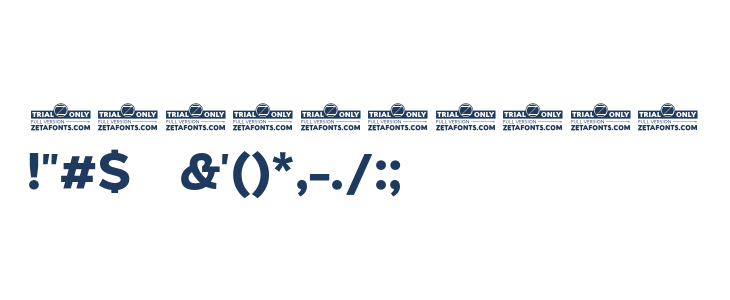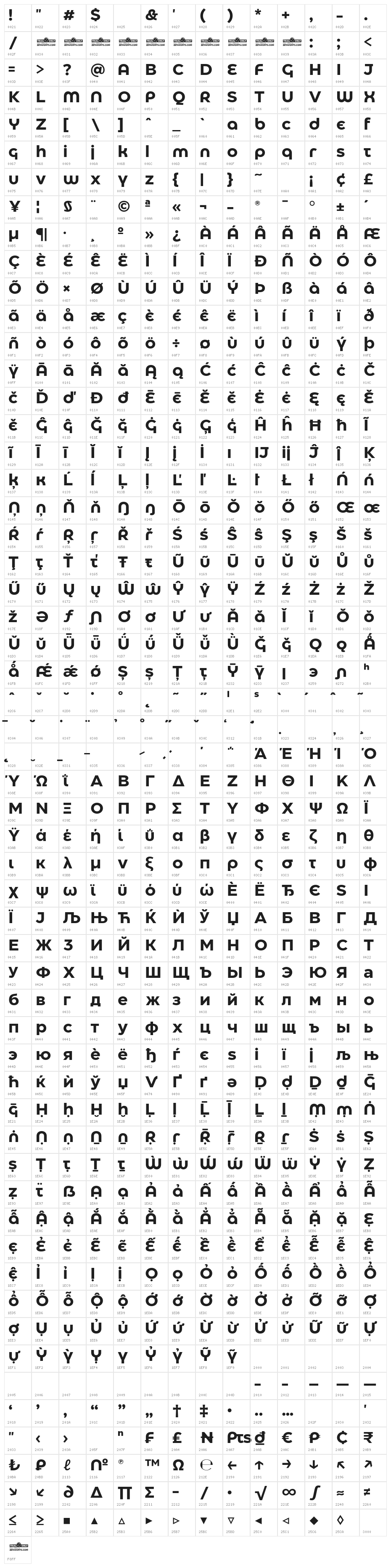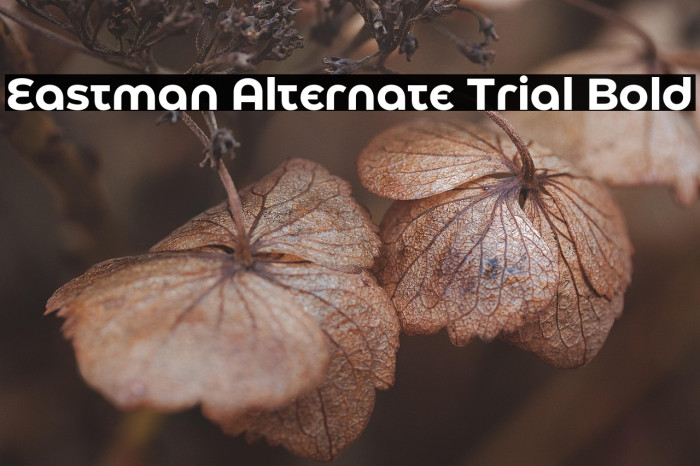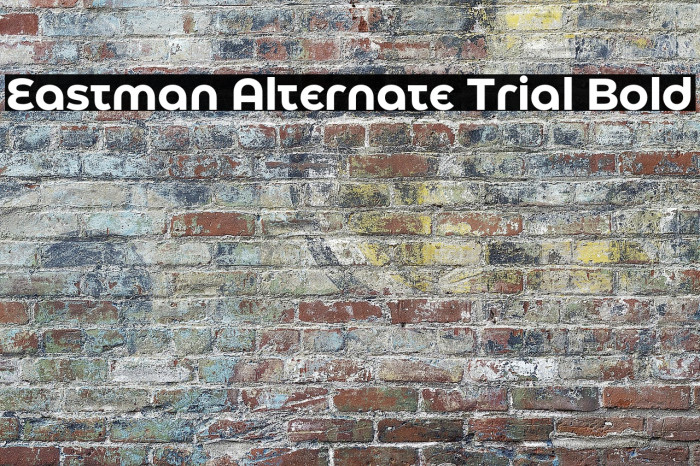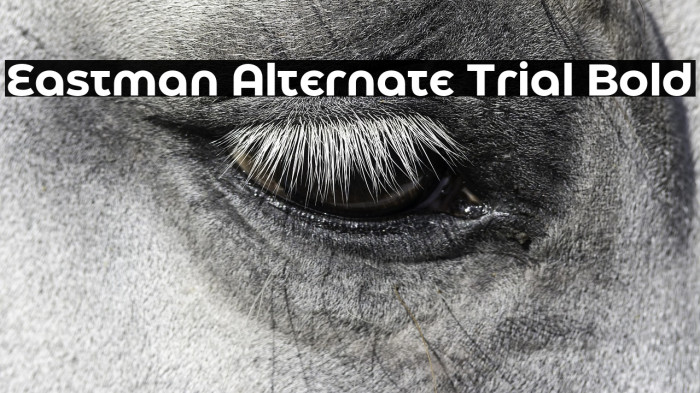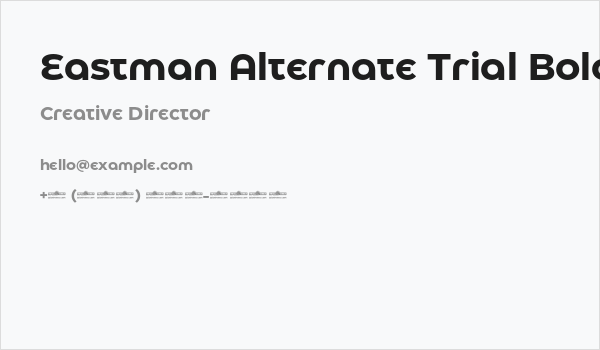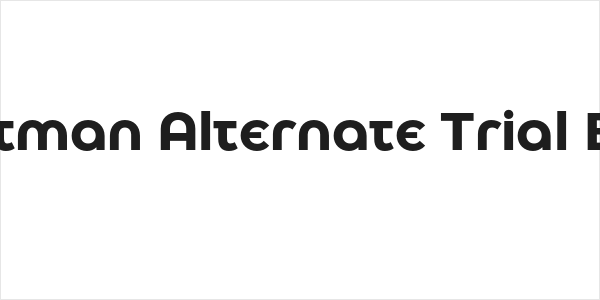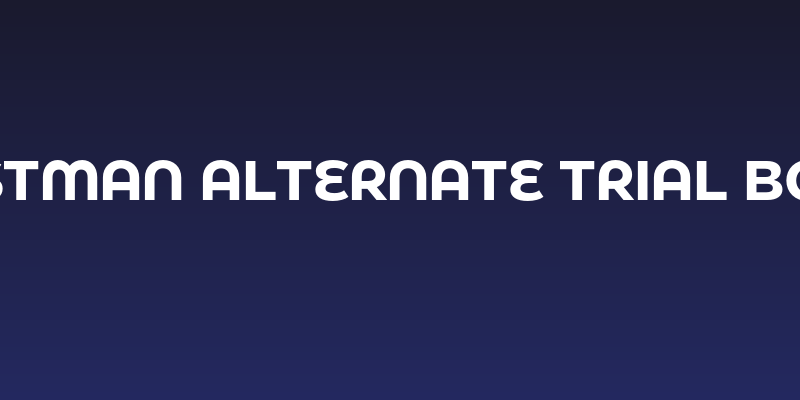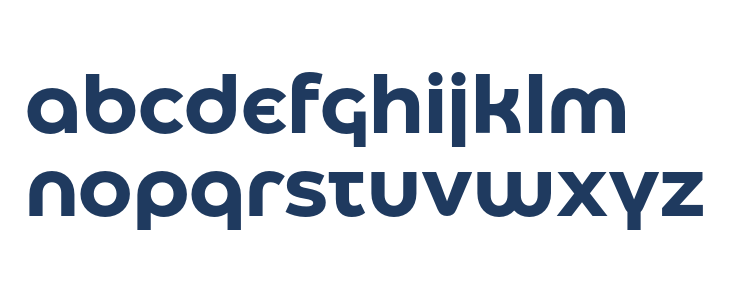
Eastman Alternate Trial Bold Font
Eastman Alternate Trial Bold Description
This font features a bold and modern design with clean, geometric lines. The uppercase and lowercase letters maintain a consistent width, creating a uniform appearance. The rounded edges and smooth curves give it a friendly and approachable feel, while the bold weight ensures strong visibility and impact. The numerals and special characters are designed to match the overall style, providing a cohesive look across all text elements. This font is versatile, suitable for both digital and print media, and can be used to convey a contemporary and professional tone.
| Proposed Projects | Ideal for branding, advertising, headlines, and digital media projects. |